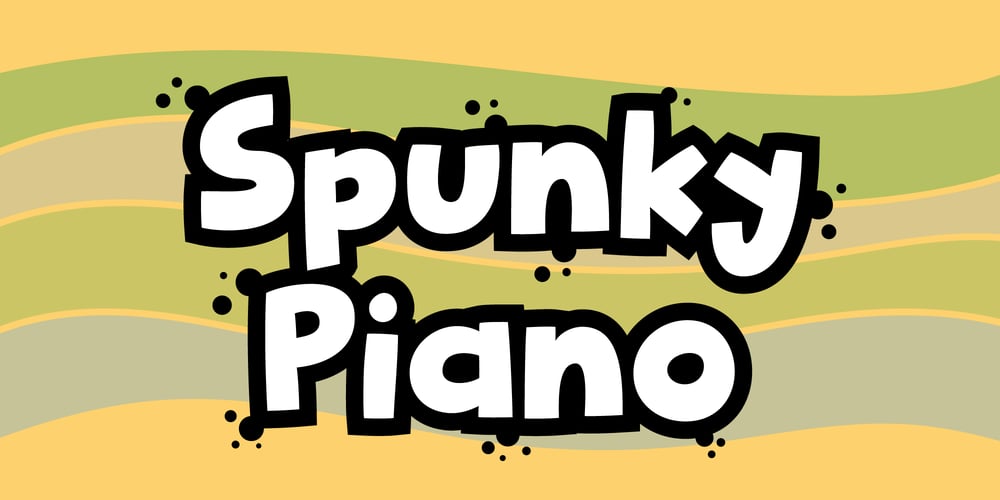
Spunky Piano Font Family was designed by Jakob Fischer and published by PizzaDude.dk. Spunky Piano contains 4 styles and family package options. You really can’t tell that Spunky Piano was originally handdrawn, because I have cleaned up every single letter digitally – creating a powerful and expressive comic font – but still full of bold, playful and legible look!With its dynamic curves and energetic shapes, Spunky Piano is suitable for things like kids posters, stickers, comic books. speed bubbles and different kinds of products (typically for kids, but anything that needs a fresh and casual look!)